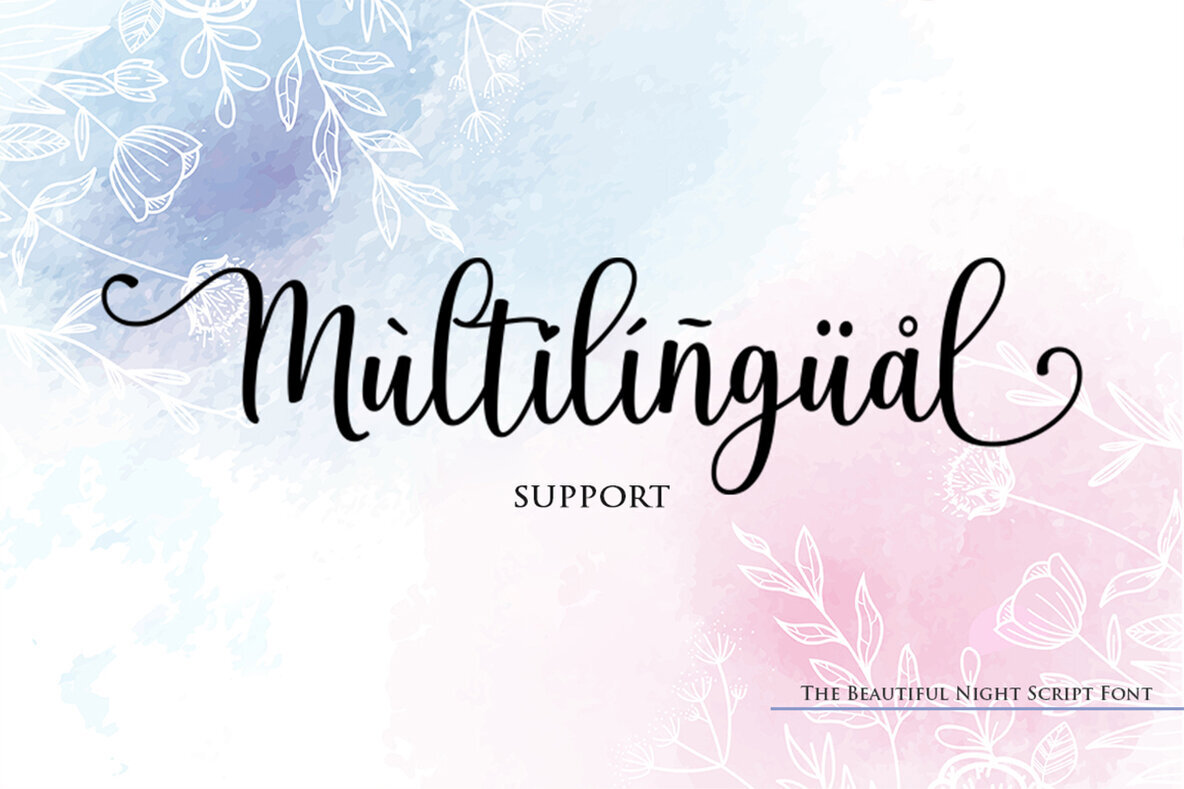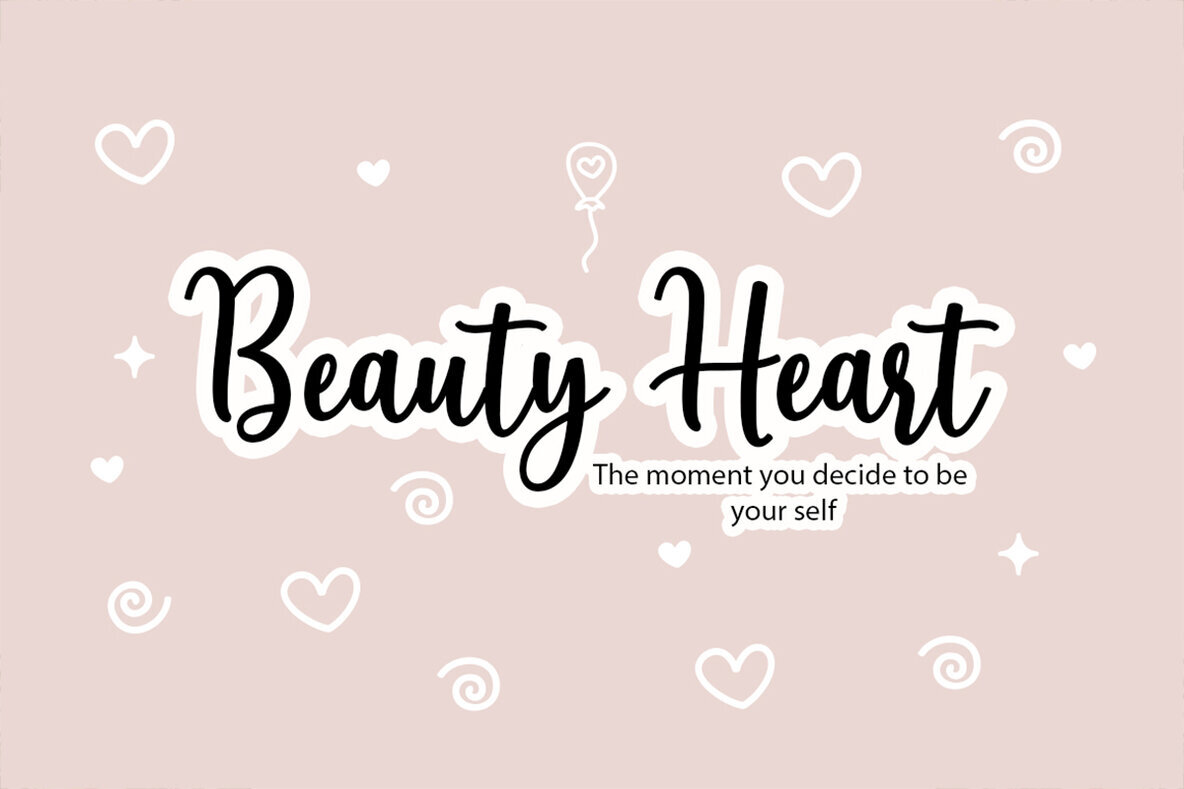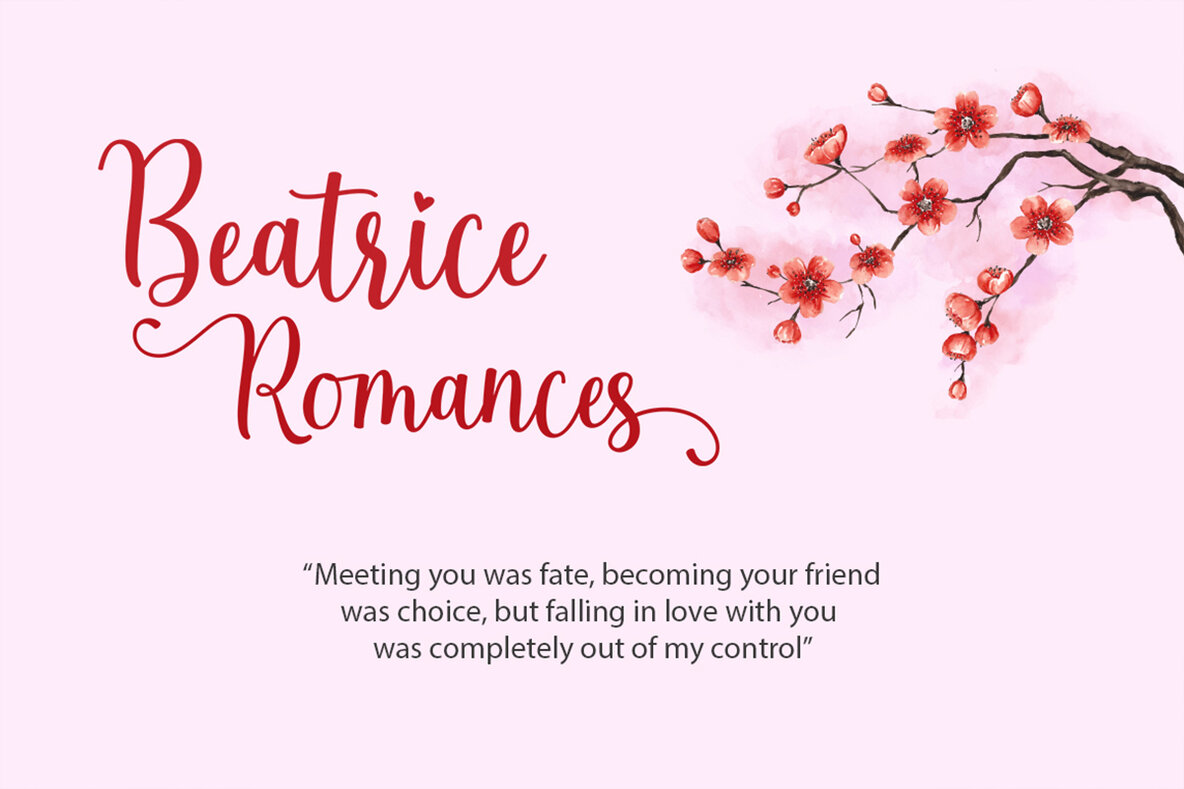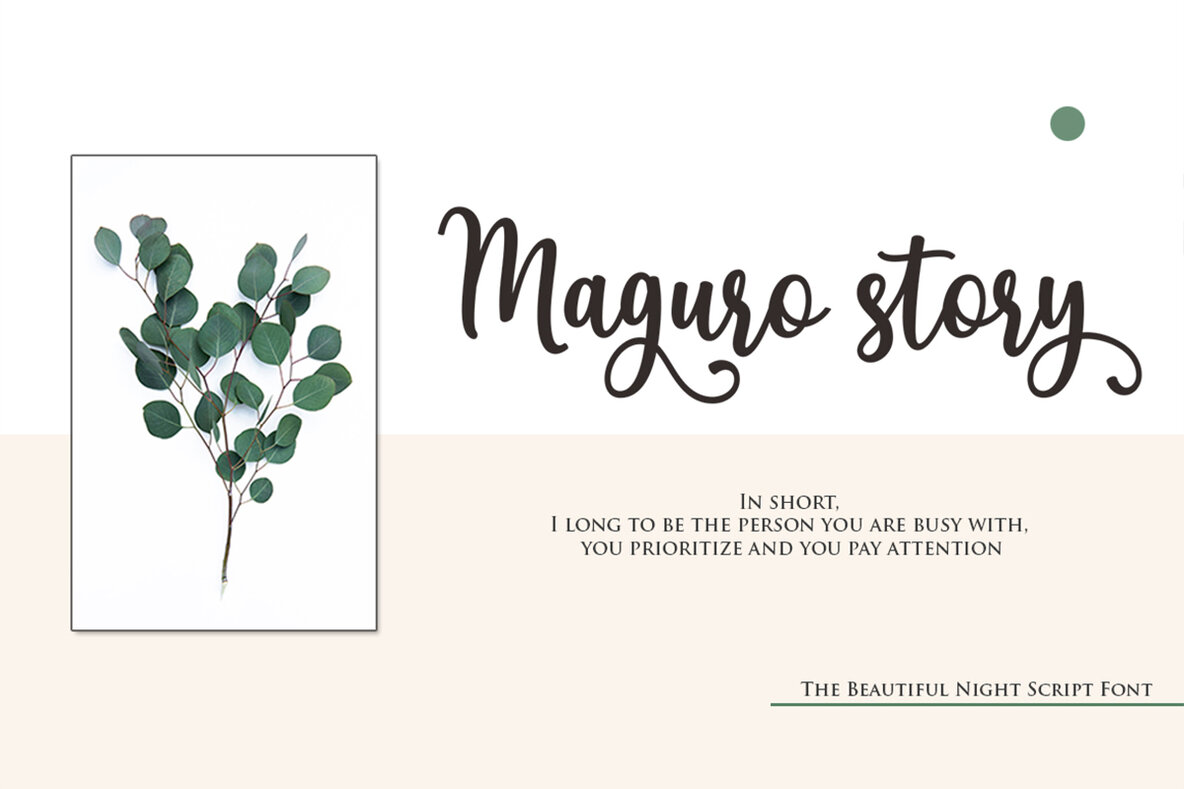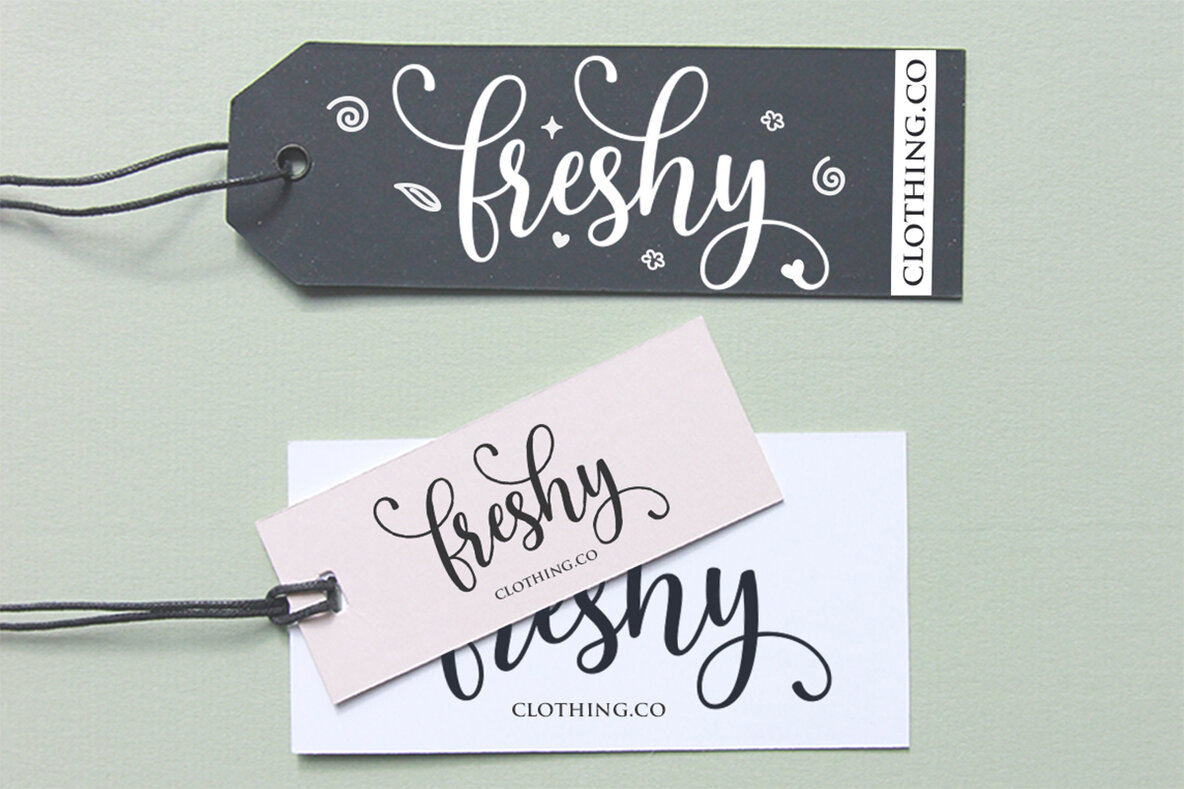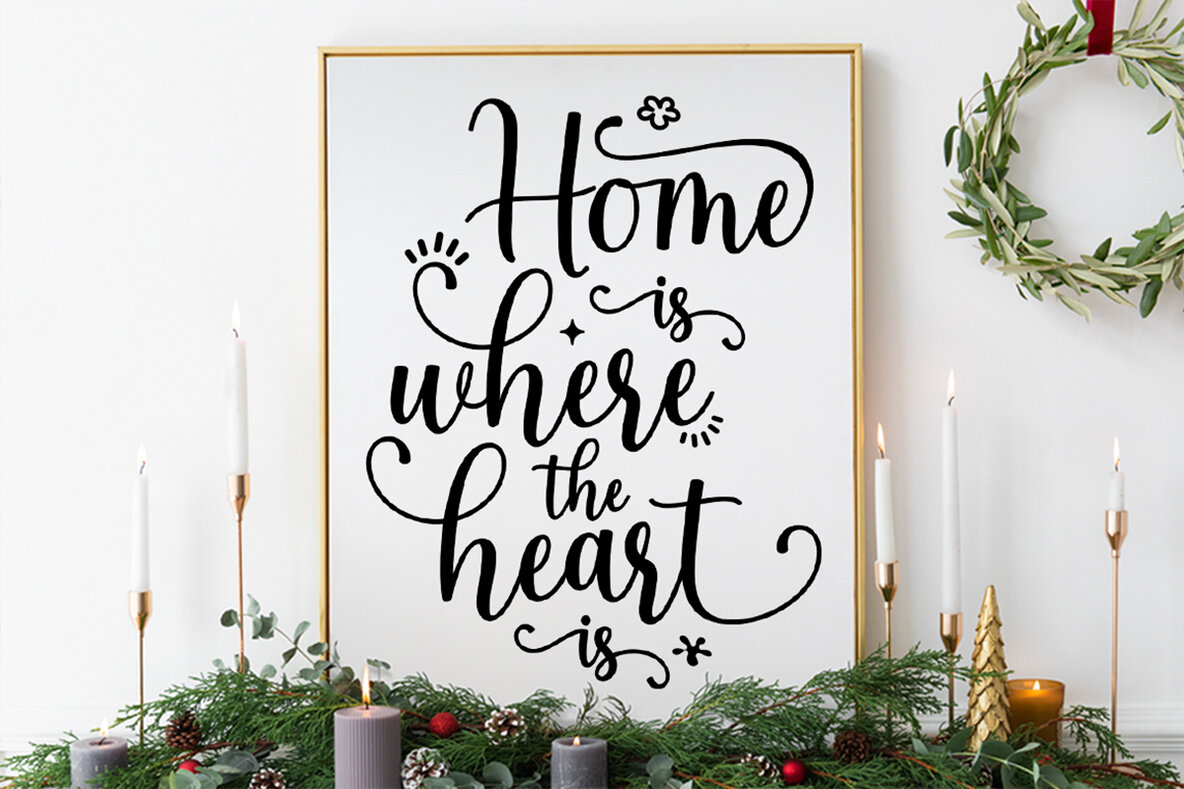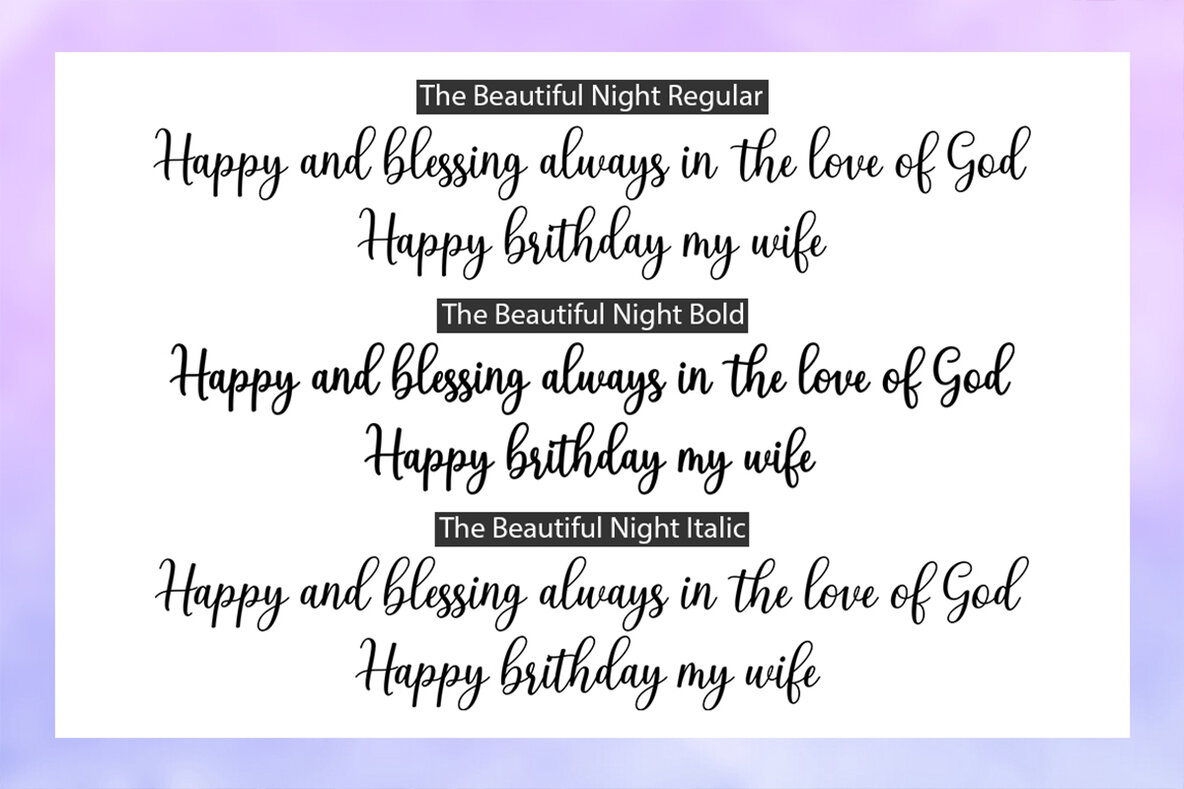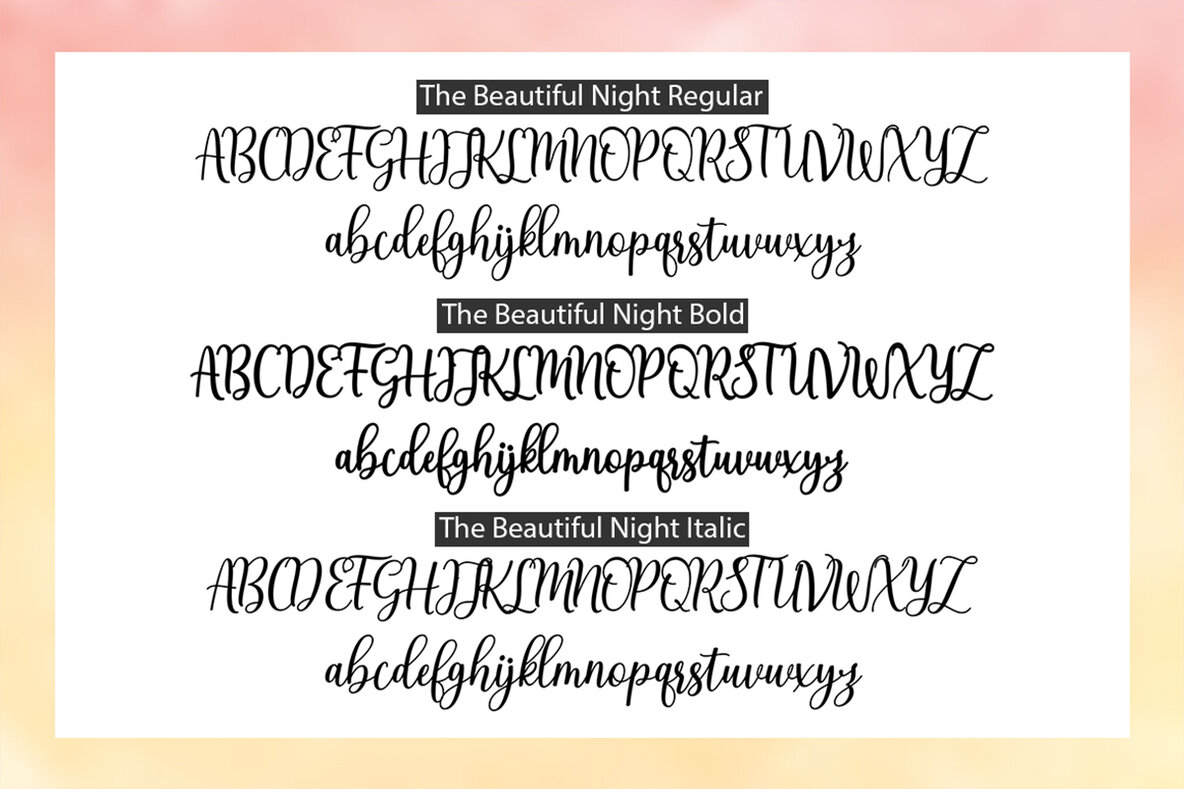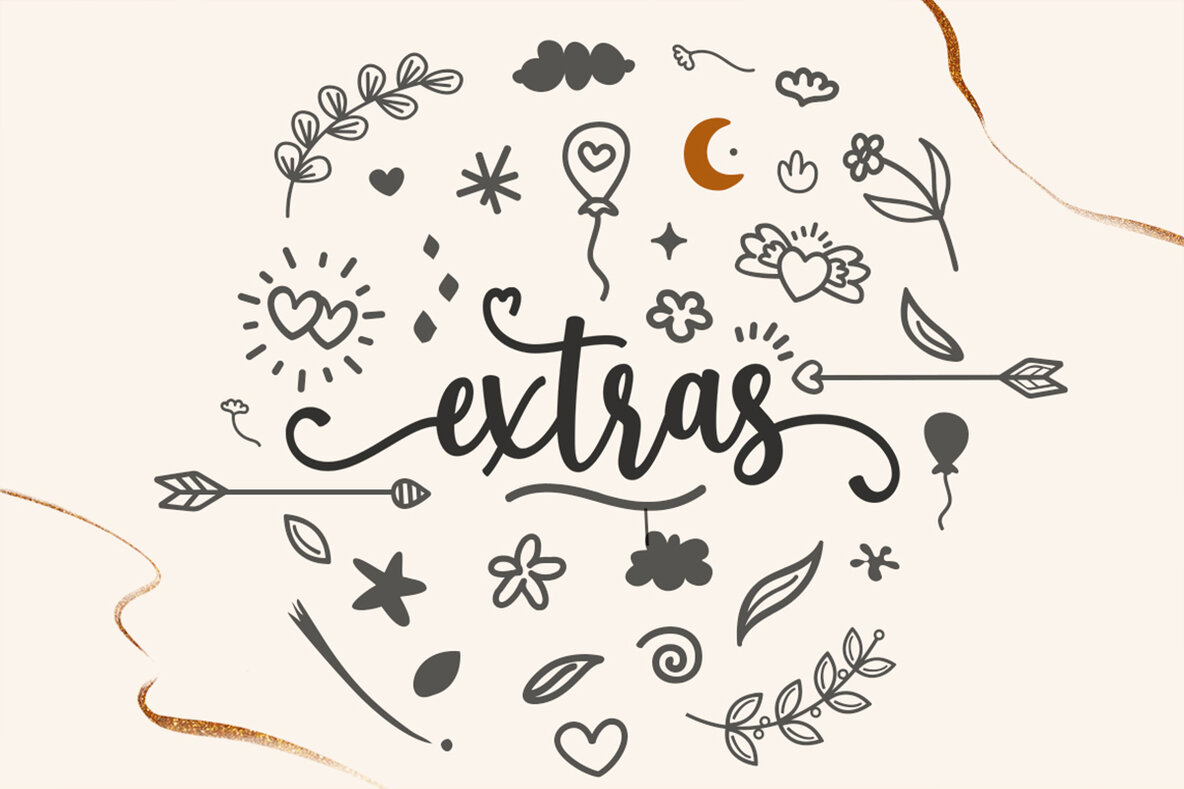
The Beautiful Night Font
The Beautiful Night by Attract Studio is a contemporary script font that interweaves romance and informality. Its handwritten style, coupled with decorative characters, is ideal for a variety of design applications—from branding and logos to web and editorial design. This font’s sweet and sassy script nature makes it a versatile choice, especially for those seeking to incorporate a personal touch into their visual projects.The Beautiful Night: Elegant Script for Creative Projects
With its combination of delicately hand-drawn design elements, The Beautiful Night empowers designers to craft visually stunning typographic compositions effortlessly.